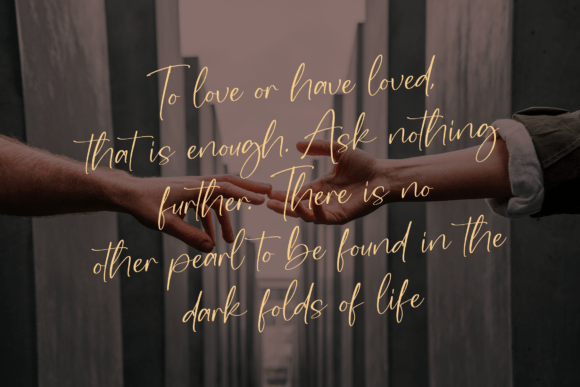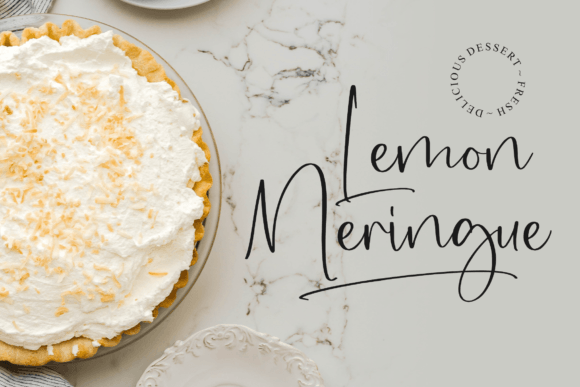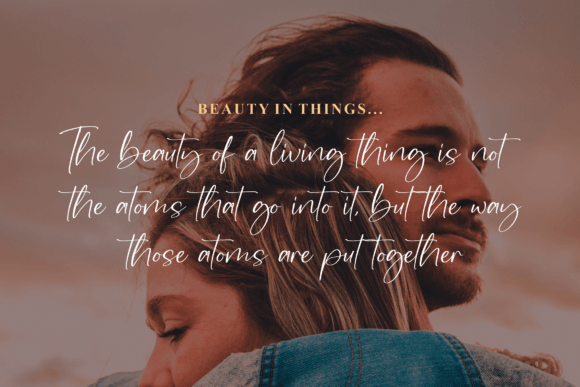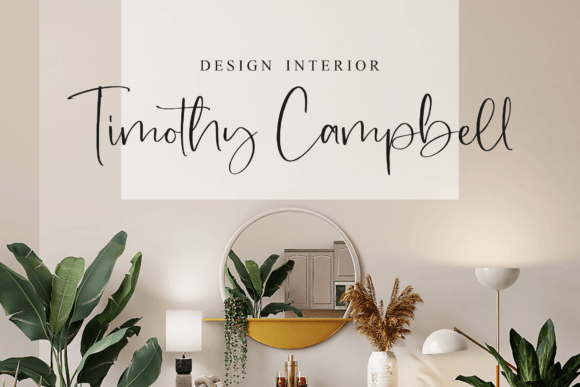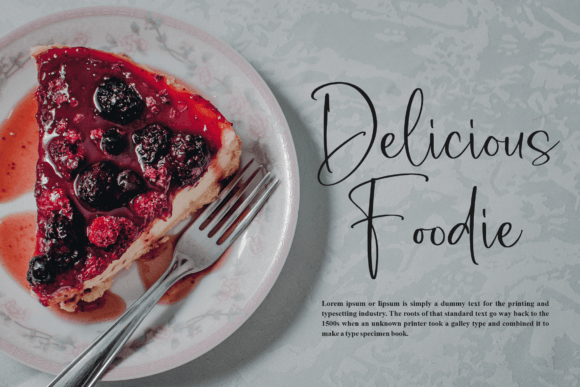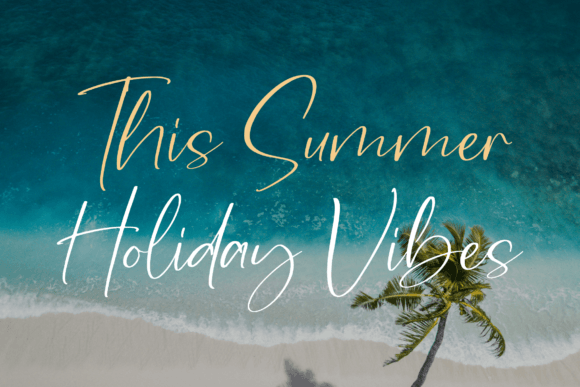
Dangella Font: Elevate Your Designs with a Touch of Elegance
In the world of design, fonts play a crucial role in conveying the tone and personality of a project. For those seeking a script font that exudes elegance and sophistication, Dangella – Handwritten Script Font is an excellent choice. This versatile font is suitable for a wide range of projects, from logos and branding to homeware designs, product packaging, and more.
What is Dangella Font?
Dangella is a beautifully crafted handwritten script font, designed to add a touch of luxury and refinement to any project. Its flowing lines, intricate details, and elegant letterforms make it perfect for designs that require a high level of sophistication. Whether you’re working on a logo, invitation card, or product packaging, Dangella Font is sure to impress.
Key Features of Dangella Font
- Handwritten Script Style: Dangella Font boasts a beautiful, handwritten script style that adds a personal touch to any design.
- Elegant Letterforms: The font features intricate details and elegant letterforms that convey a sense of luxury and refinement.
- Versatile: Dangella Font is suitable for a wide range of projects, from logos and branding to homeware designs, product packaging, and more.
- Easy to Read: Despite its elegant style, Dangella Font is easy to read, making it perfect for designs that require a clear and concise message.
Uses of Dangella Font
Dangella Font is an incredibly versatile font that can be used for a wide range of projects, including:
- Logos and Branding: Create a lasting impression with a logo that exudes elegance and sophistication.
- Homeware Designs: Add a touch of luxury to your homeware designs, such as cushions, tote bags, and mugs.
- Product Packaging: Elevate your product packaging with a font that conveys refinement and sophistication.
- Mugs and Quotes: Create inspiring quotes and designs for mugs that make perfect gifts or personal items.
- Posters and Shopping Bags: Add a touch of elegance to your posters and shopping bags with Dangella Font.
- T-Shirts and Apparel: Create stylish and sophisticated designs for t-shirts and apparel.
- Book Covers and Name Cards: Use Dangella Font to create eye-catching book covers and name cards.
- Invitation Cards and Greeting Cards: Add a touch of luxury to your invitation cards and greeting cards.
- Labels and Photography: Use Dangella Font to create beautiful labels and watermarks for your photography projects.
Why Choose Dangella Font?
With so many fonts available, why choose Dangella Font? Here are just a few reasons:
- Unique and Elegant: Dangella Font offers a unique and elegant style that will set your designs apart.
- High-Quality: The font is crafted with high-quality letterforms that ensure clarity and readability.
- Versatile: Dangella Font can be used for a wide range of projects, making it a great addition to any designer’s toolkit.
In conclusion, Dangella – Handwritten Script Font is an excellent choice for designers seeking a font that exudes elegance and sophistication. With its beautiful handwritten script style, intricate details, and elegant letterforms, Dangella Font is perfect for a wide range of projects. Whether you’re working on a logo, product packaging, or homeware design, Dangella Font is sure to elevate your designs and leave a lasting impression.